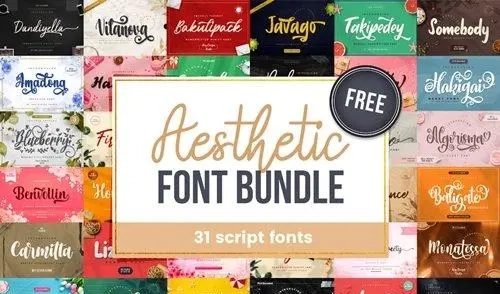
Aesthetic Font Bundle
Elevate your design projects with our Aesthetic Font Bundle, featuring a curated selection of unique typefaces that cater to various creative needs. This bundle includes a variety of font styles, from elegant scripts to bold sans-serifs, ensuring you have the perfect typography for any occasion.
• Multiple font styles: script, serif, sans-serif, and display fonts
• Various weights for each font, allowing for versatile design applications
• Stylish and modern aesthetics suitable for branding, logos, and promotional materials
• Readability-focused designs ideal for both web and print use
• Experiment with different weights and styles to create a unique visual identity
• Pair fonts from the bundle to enhance your design’s overall appeal